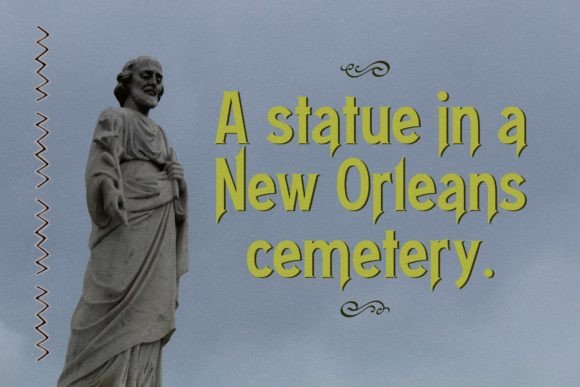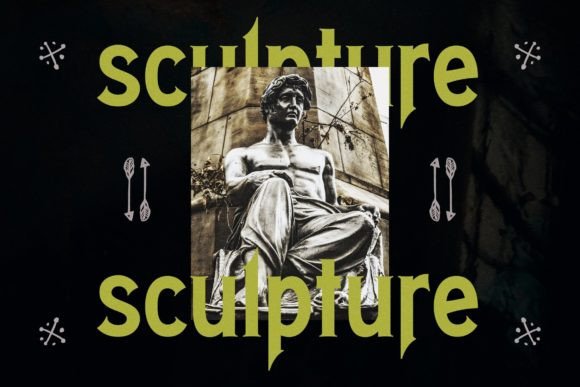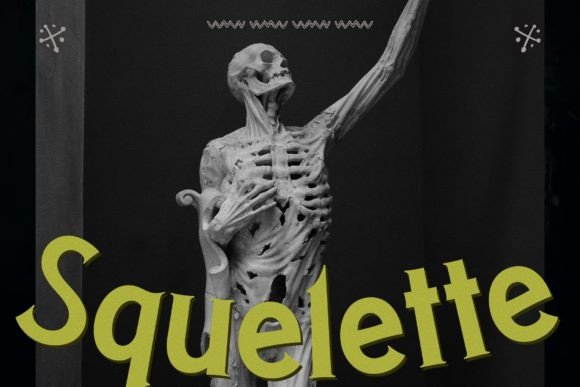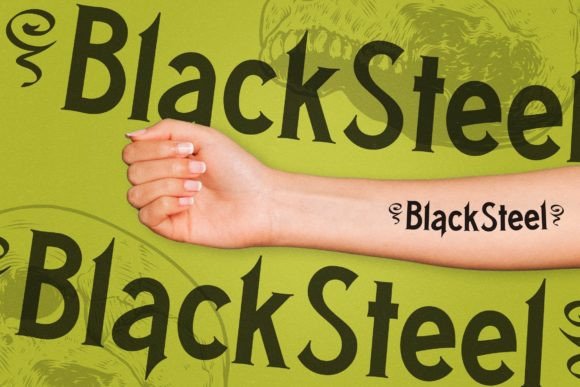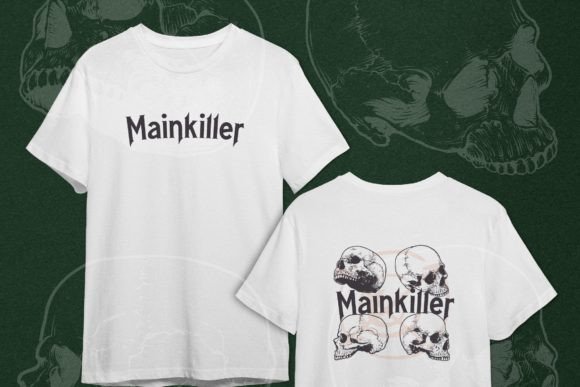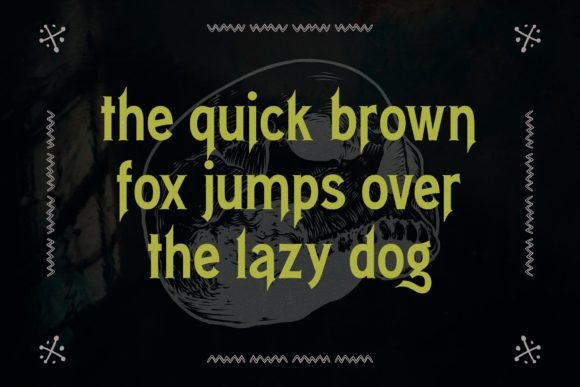
Unleash Your Creativity with Black Gohan Font: A Spectacular Serif Font
Are you a designer or crafter looking for a font that can elevate your creative projects to new heights? Look no further than the Black Gohan Font, a spectacular serif font that is incredibly versatile and perfect for a wide range of designs. In this article, we’ll dive into the world of Black Gohan Font and explore its features, benefits, and uses, and discover how it can bring your ideas to life.
What is Black Gohan Font?
Black Gohan Font is a stunning serif font that boasts a classic and sophisticated look. Its unique design combines traditional serif elements with modern twists, making it a standout in the world of typography. The font’s sleek lines, elegant curves, and precise craftsmanship make it perfect for a variety of creative projects, from branding and advertising to packaging and digital media.
The Versatility of Black Gohan Font
One of the key benefits of Black Gohan Font is its incredible versatility. This font can be used in a wide range of designs, from elegant and sophisticated to bold and edgy. Whether you’re creating a luxury brand identity, a stylish poster, or a modern website, Black Gohan Font is the perfect choice. Its adaptability makes it an excellent addition to any designer’s font library, allowing you to experiment with different styles and ideas.
Features of Black Gohan Font
So, what makes Black Gohan Font so special? Here are some of its key features:
- Spectacular serif design: Black Gohan Font boasts a stunning serif design that adds a touch of elegance and sophistication to any project.
- Incredibly versatile: This font can be used in a wide range of designs, from classic and traditional to modern and bold.
- High-quality craftsmanship: Black Gohan Font is crafted with precision and attention to detail, ensuring a high-quality finish.
- Elegant and sophisticated: This font exudes style and sophistication, making it perfect for luxury brands and high-end designs.
Benefits of Using Black Gohan Font
So, why should you choose Black Gohan Font for your creative projects? Here are some of the benefits of using this amazing font:
- Elevate your designs: Black Gohan Font can elevate your designs to new heights, adding a touch of elegance and sophistication.
- Stand out from the crowd: This font’s unique design makes it a standout in the world of typography, ensuring your designs get noticed.
- Perfect for branding and advertising: Black Gohan Font is ideal for branding and advertising projects, helping you create a lasting impression.
How to Use Black Gohan Font
Using Black Gohan Font is easy! Here are some tips to get you started:
- Pair it with other fonts: Experiment with pairing Black Gohan Font with other fonts to create a unique and eye-catching design.
- Use it for headlines and titles: This font is perfect for headlines and titles, adding a touch of elegance and sophistication.
- Experiment with different colors: Try using Black Gohan Font with different colors to create a bold and eye-catching design.
In conclusion, Black Gohan Font is a spectacular serif font that can elevate your creative projects to new heights. Its incredible versatility, stunning design, and high-quality craftsmanship make it a must-have for designers and crafters. Whether you’re creating a luxury brand identity, a stylish poster, or a modern website, Black Gohan Font is the perfect choice. So why wait? Add Black Gohan Font to your favorite creative ideas and watch them come alive!